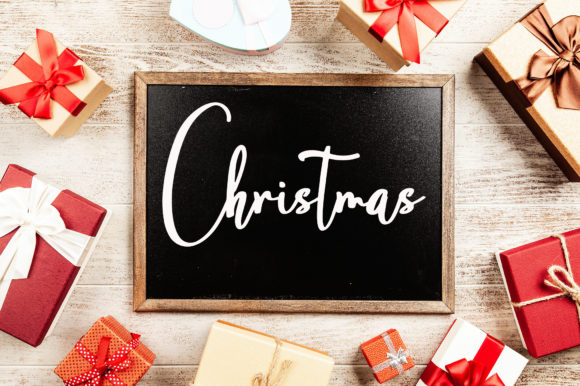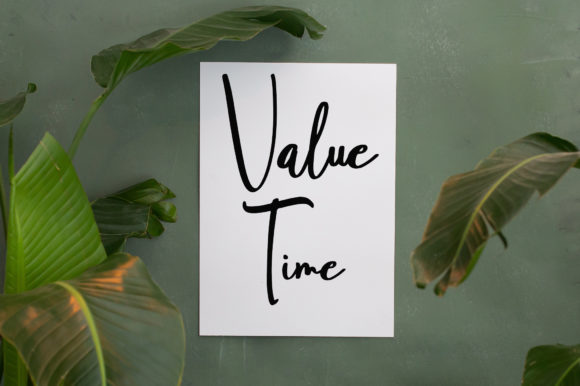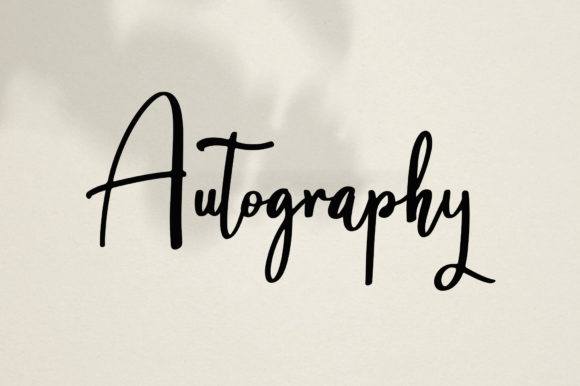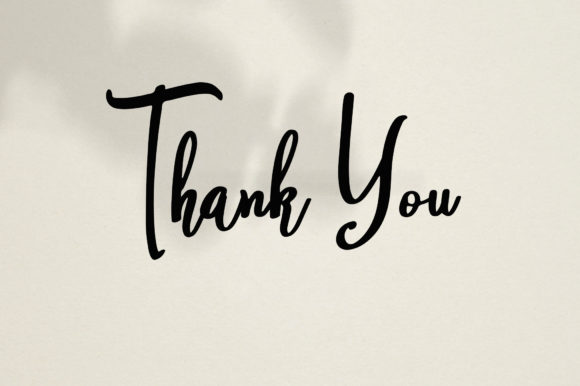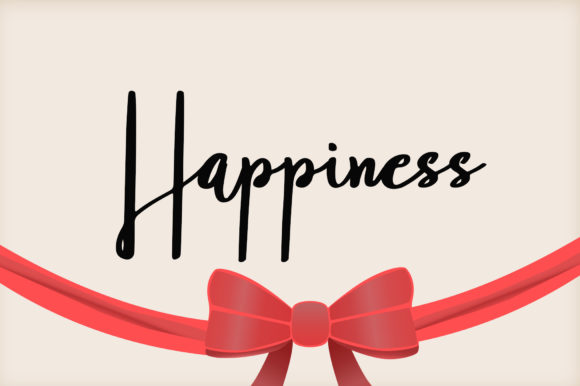
About Simple Farmhouse Font
“Simple Farmhouse” is a beautiful and flowing handwritten font that offers an array of creative possibilities. Its elegant and graceful design makes it an ideal choice for a wide range of applications, allowing you to bring a touch of charm to various design projects.
The font’s versatility shines through in its ability to be used across a spectrum of contexts. Whether you’re creating wall displays, designing wedding invitations, crafting social media post logos, producing eye-catching advertisements, curating product packaging, or working on any project that demands impressive typography, “Simple Farmhouse” is poised to make an impact.
Its flowing script style adds a sense of elegance and authenticity to your work. The font’s ability to convey emotion and personality through its strokes enhances its suitability for projects that require a personalized touch.
As you delve into the capabilities of “Simple Farmhouse,” you’ll find that it elevates your designs and adds a layer of sophistication. Its flowing and beautiful design becomes a key element that captures attention and resonates with your audience.
In essence, “Simple Farmhouse” becomes more than just a font—it’s a tool that empowers you to create remarkable designs with a flowing and elegant handwritten touch. Its versatility and aesthetic appeal ensure that your projects stand out and make a lasting impression. With “Simple Farmhouse,” your creative possibilities expand, and your designs become expressions of style and refinement that captivate your viewers.